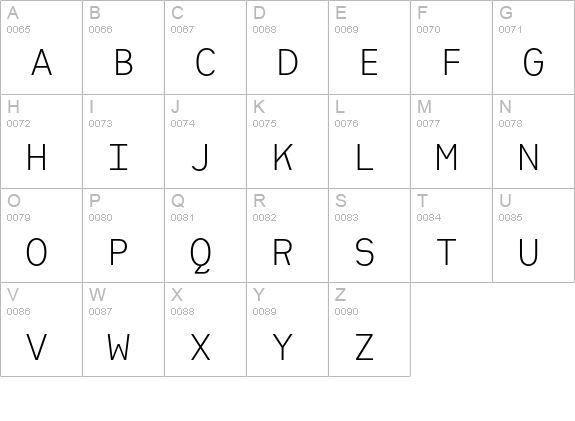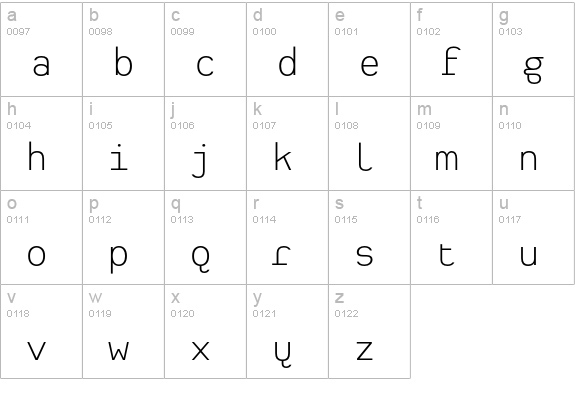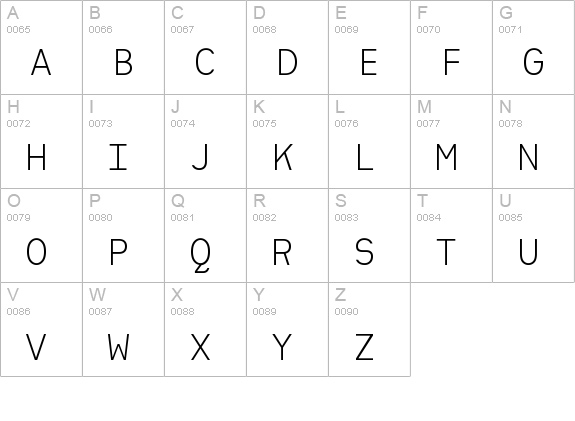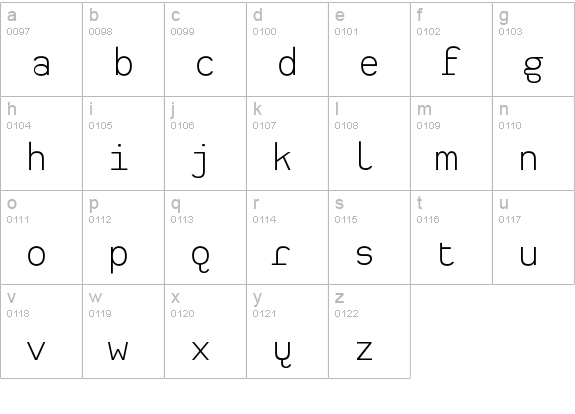
Heimat Mono Light Font Details
Heimat Mono Light is a refined, elegant variant in the Heimat typeface family \xE2\x80\x94 well suited to elegant body text, refined sub-headings, and luxury branding.
Heimat Mono Light font is a modern and stylish typeface that exudes simplicity and elegance. With its clean lines and sleek design, this font is perfect for a wide range of design projects, from branding to editorial design. The light weight of Heimat Mono Light adds a touch of sophistication and readability to any text. What's even better is that Heimat Mono Light font is available for free download at FontsMarket.com. This means you can easily access this versatile font and use it in your projects without any cost. Whether you're a designer looking to add a fresh and contemporary feel to your work, or a business owner wanting to enhance your brand identity, Heimat Mono Light font is a fantastic choice that won't break the bank. Download it today and elevate your designs with this stylish and free font option.